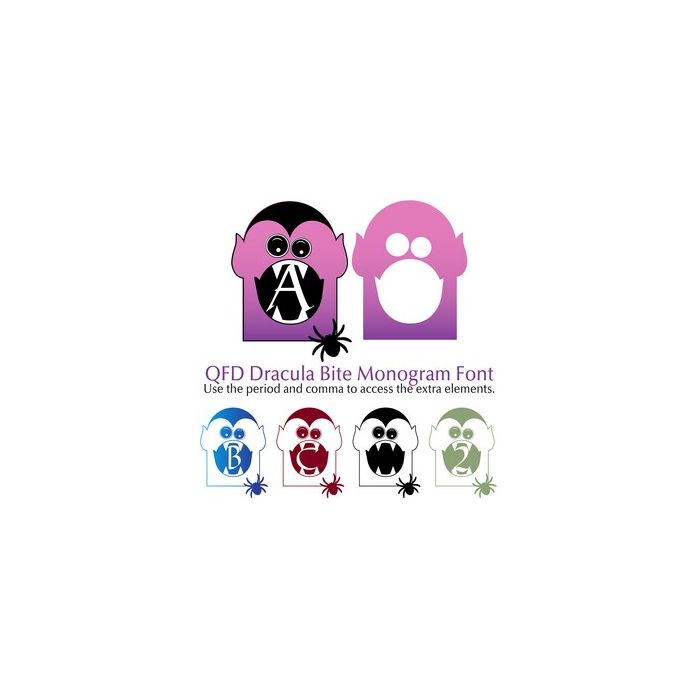
QFD Dracula Bite Monogram Font
Use the period and comma to access the extra elements. See the other Quietfire Halloween-themed filled Monogram Fonts. Perfect for gift tags, cards, pillows, invitations, wall art, t-shirts, mugs and anything else you can think of. See our detailed monograms tutorial by clicking the Instructions button. If you have any questions, please feel free to contact me!